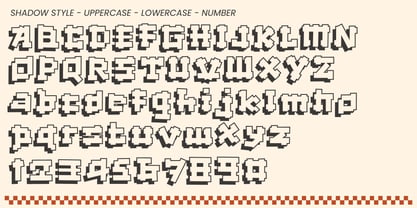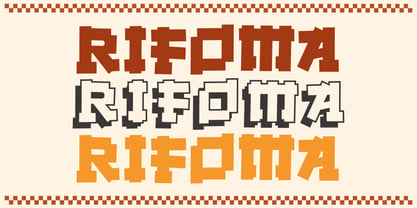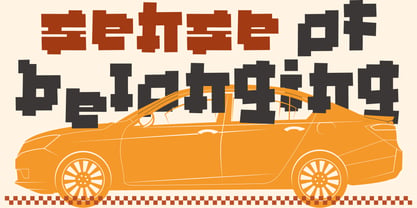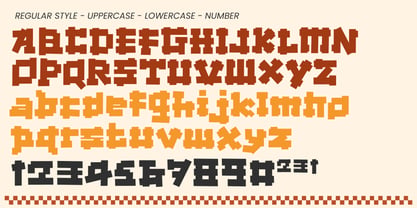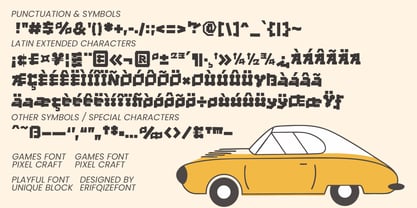
Sense Of Belonging
by Erifqizefont
The Sense Of Belonging Font Family was designed by Eka Rifqi Setiawan and published by Erifqizefont. Sense Of Belonging contains 2 styles and family package options. More about this family
Sense Of Belonging – Playful Pixel Block Font Sense Of Belonging is a display typeface inspired by pixel craft and block-style design, blending retro gaming aesthetics with a playful, experimental touch. Each character is built with a bold and boxy structure, delivering a unique, fun, and creative personality that stands out in any project. This font comes with two distinct styles: Regular and Shadow, allowing you to mix and layer them for dynamic visual effects. It’s perfect for game titles, creative posters, digital art, logos, retro covers, and nostalgic design projects. With its strong geometric rhythm and playful block forms, Sense Of Belonging brings a mix of fun, boldness, and originality. The font also includes multilingual support and a full set of symbols and punctuation, making it ready for versatile modern design use.
Designers: Eka Rifqi Setiawan
Foundry: Erifqizefont
Introducing Erifqizefont, a Foundry led by Eka Rifqi Setiawan. Originating from Eka's experience as an Icon Designer, Erifqizefont specializes in bold, symmetrical Display Fonts with futuristic elements, occasionally exploring retro and whimsical styles. Based in Indonesia, Erifqizefont integrates the nation's cultural heritage into its designs. As a sole proprietor, Eka focuses on crafting superior, unique fonts, setting Erifqizefont apart in the industry.